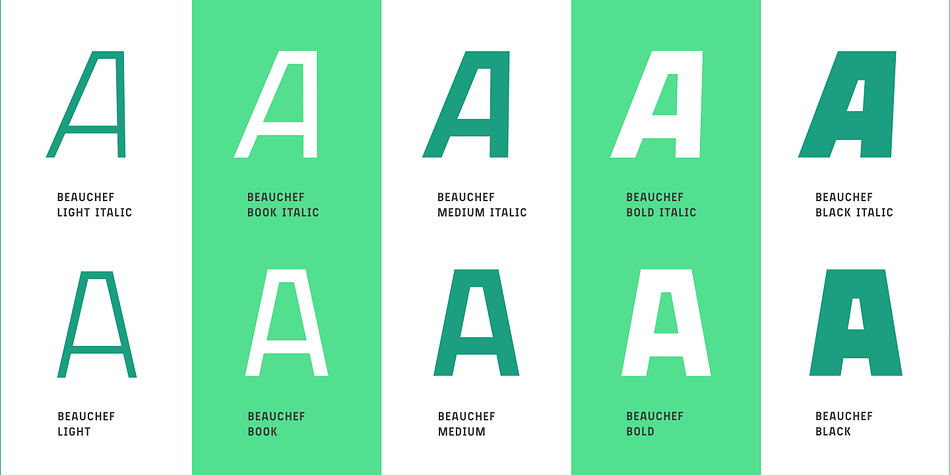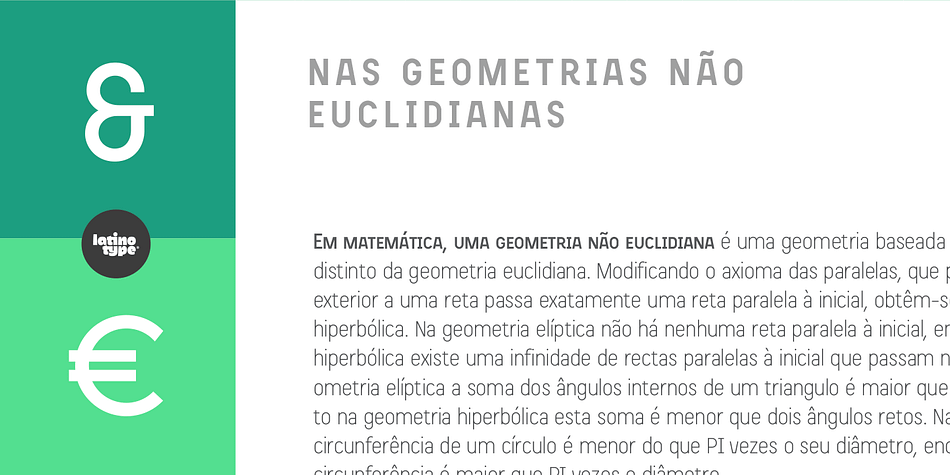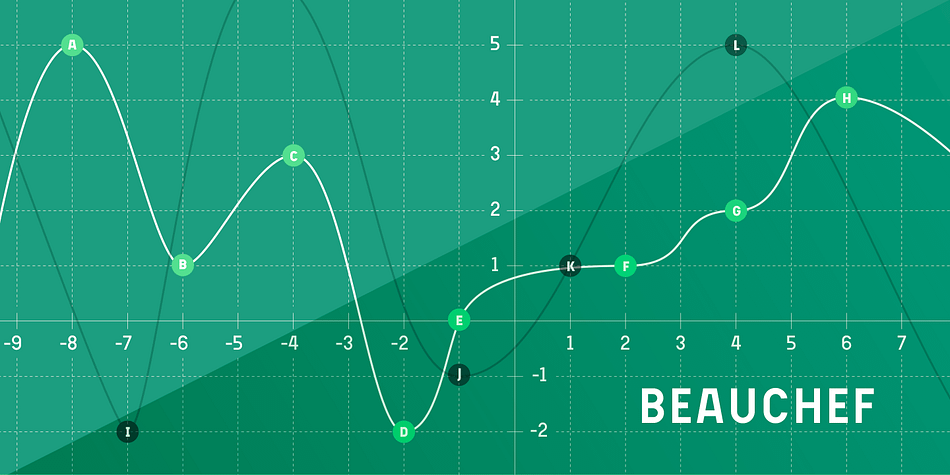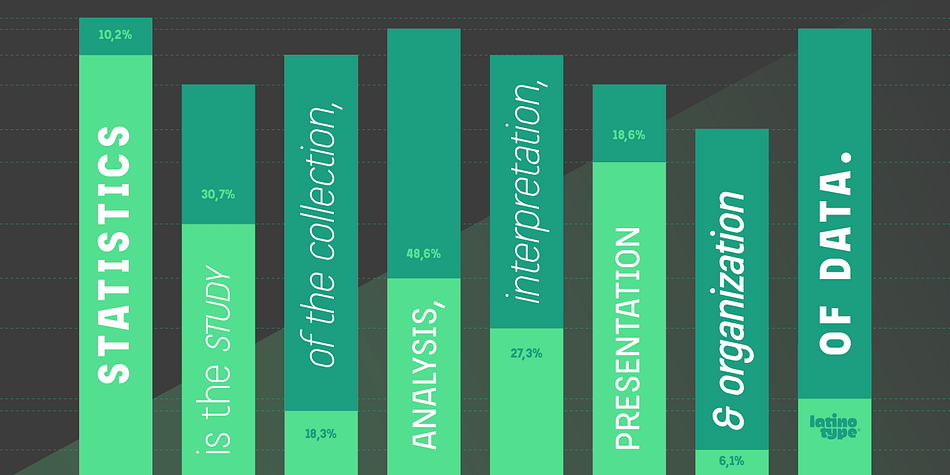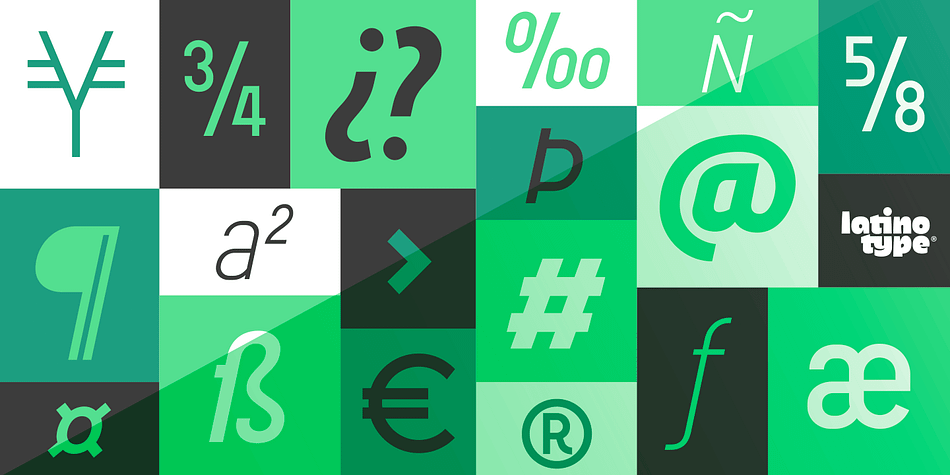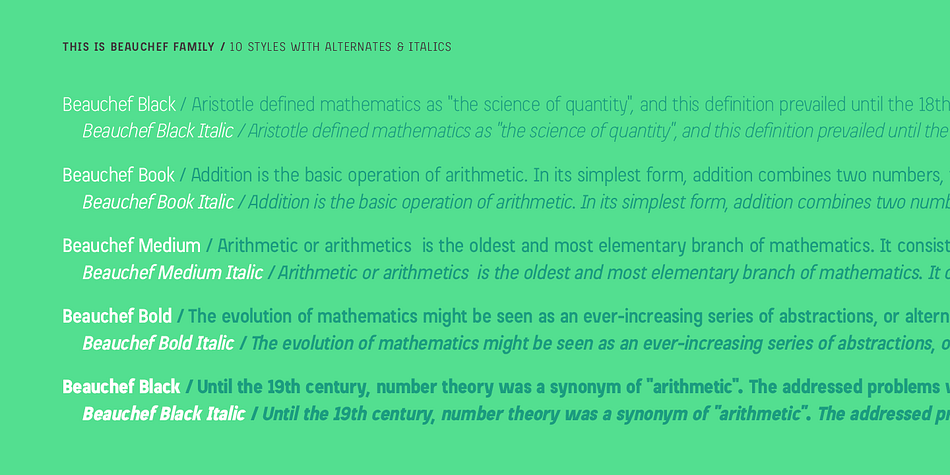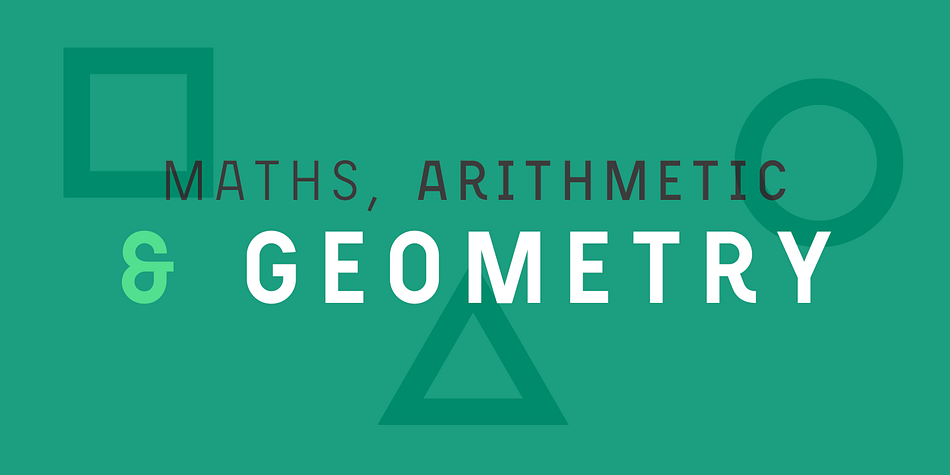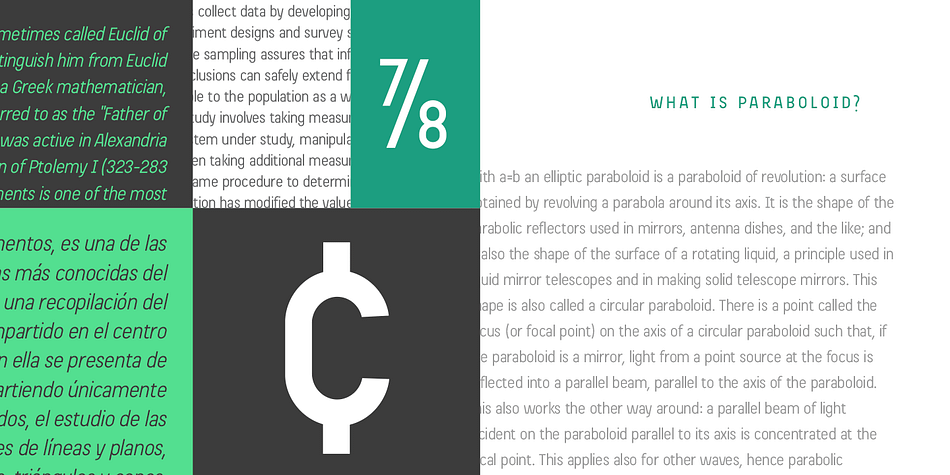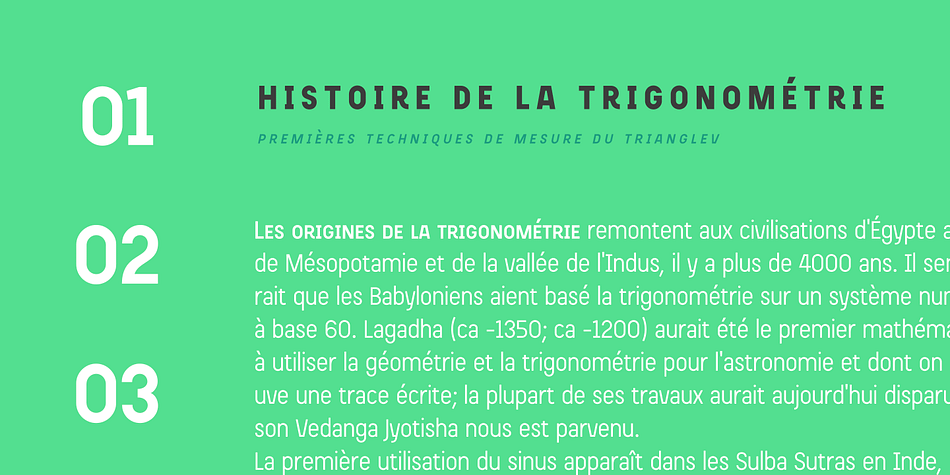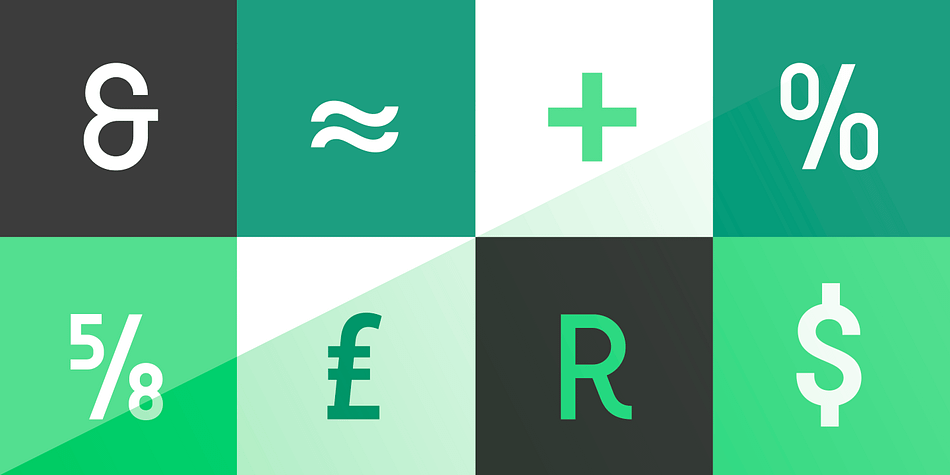
Beauchef is a sans serif font family. This typeface has ten styles and was published by Latinotype.
Beauchef is a sans serif typeface originally created to meet the needs of Centro de Modelamiento Matemático de la Universidad de Chile (University of Chile Center for Mathematical Modeling). Beauchef is a typeface with rough strokes that features subtle optical compensation and does not strictly follow the laws of perception. This typeface might not be too cheerful, but shows a very particular idiosyncrasy of form. Beauchef is as tough as advanced mathematics; however, it is as legible and exact as numbers themselves. This is an avant-garde typeface that resembles the development of mathematics, but at the same time it is as conservative, calm and respectful as clients who require its services. Beauchef is so astonishing as mathematical formulas that mathematicians work with, but at the same time it is as humble as resulting figures.